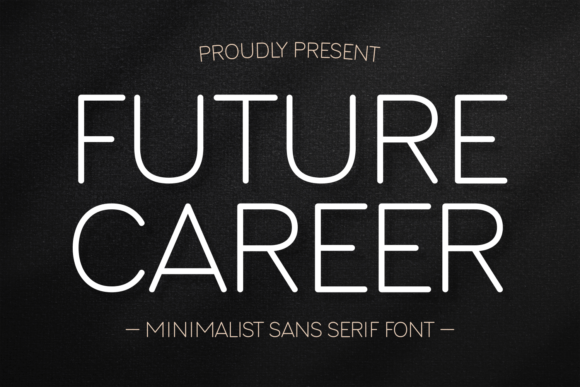
Introducing Future Career Font, the perfect choice for all your creative endeavors! This elegant and modern sans serif font, created by the talented Jasm from 7NTypes, will take your designs to new heights. With its minimalist and clean vibe, Future Career is the ultimate tool to elevate your projects and captivate your audience.
Imagine the impact this font will have on your book covers. With its sleek and stylish appeal, Future Career will instantly grab attention and entice readers to dive into the world you've created. Whether you're designing for fiction or non-fiction, this font will add a touch of sophistication and professionalism that sets your book apart.
But it doesn't stop there. Future Career is also the perfect companion for your online magazine. As an e-commerce SEO expert, I know the importance of captivating your audience and keeping them engaged. With its eye-catching appearance, Future Career will make your magazine stand out from the rest. Your articles will come to life, drawing readers in and keeping them hooked until the very last page.
In today's digital world, social media plays a crucial role in marketing your brand. Future Career is the ideal choice for creating stunning social media posts that demand attention. Whether you're promoting a product, sharing a quote, or announcing an event, this font will make your posts shine. Its modern and sleek design will make your content scroll-stopping and share-worthy.
Invitations are meant to make a statement, and with Future Career Font, yours will do just that. Whether it's a wedding, a birthday party, or a corporate event, this font will set the tone for the occasion. Its elegance and versatility allow it to adapt to any theme, ensuring that your invitations leave a lasting impression on your guests.